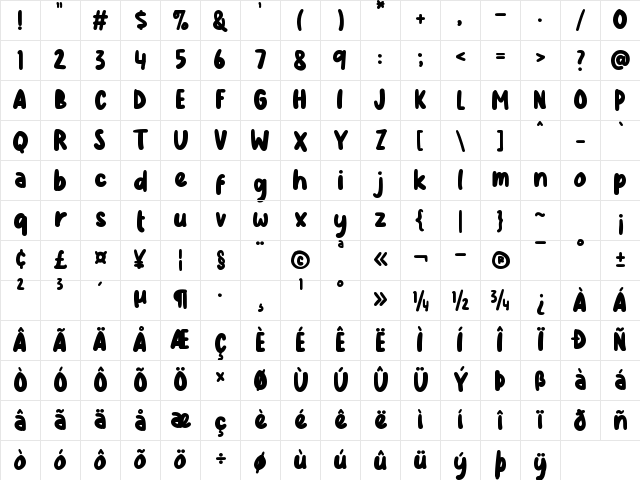
Snowy Days Regular
Foundry: Dm Letter Studio
Designer: Dimas Prasetyo
Design Context for Snowy Days
Snowy Days is a composed and adaptable typeface that performs quietly and consistently across a wide range of design contexts.